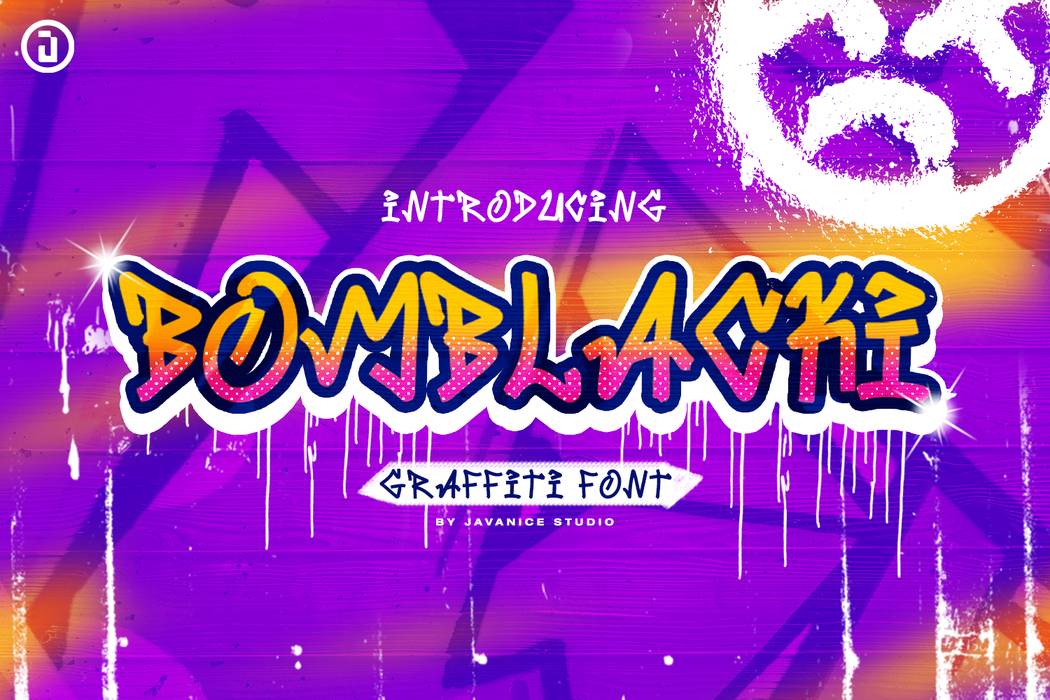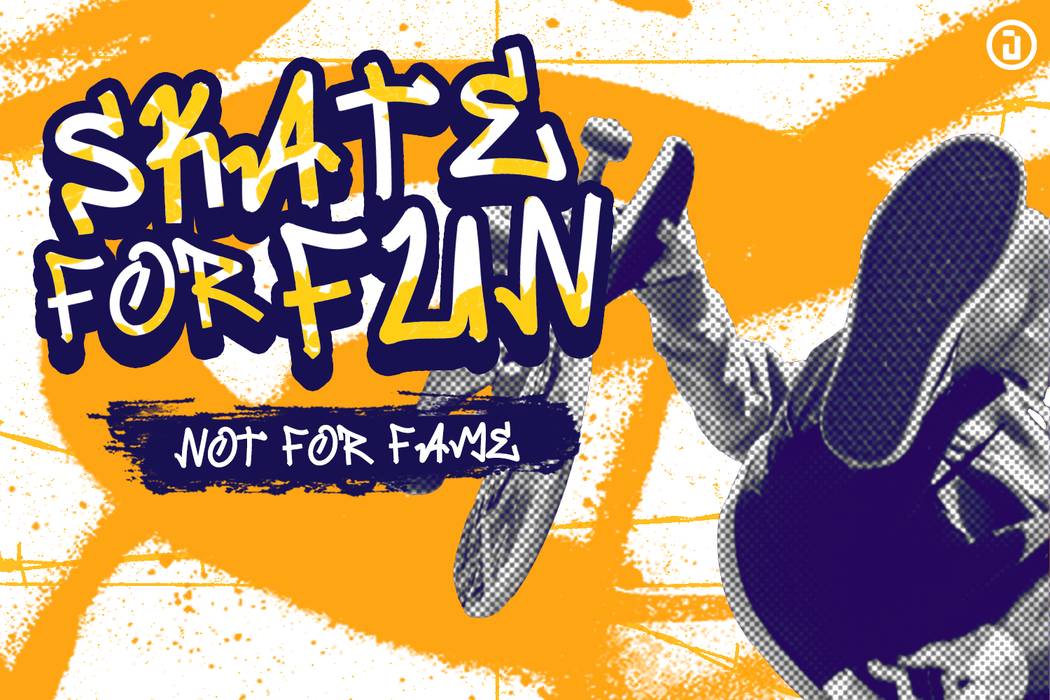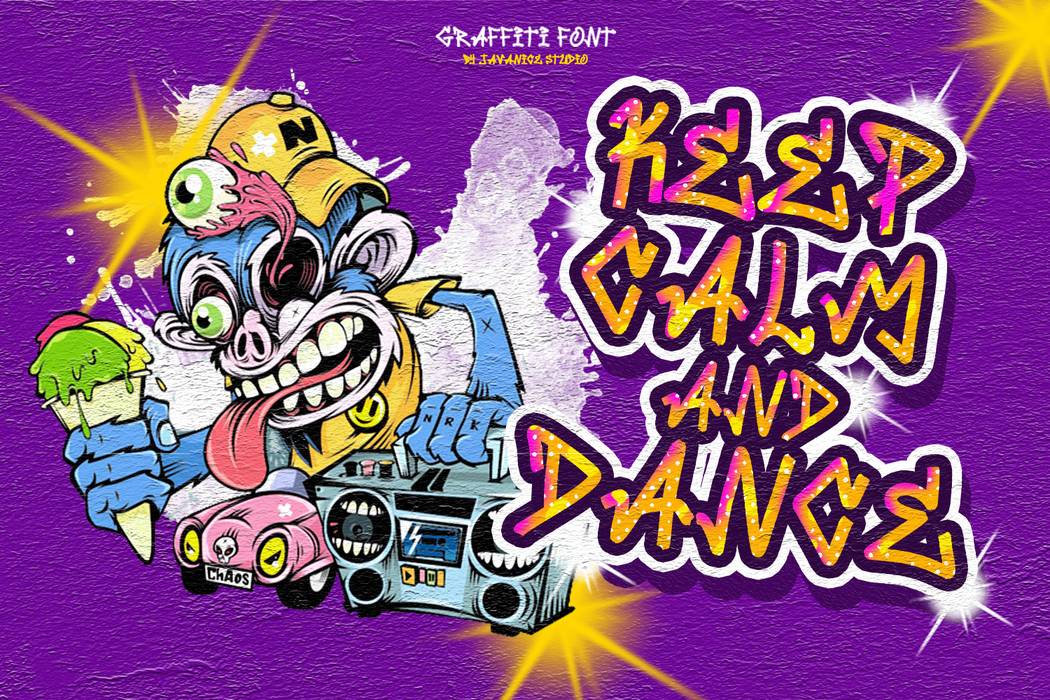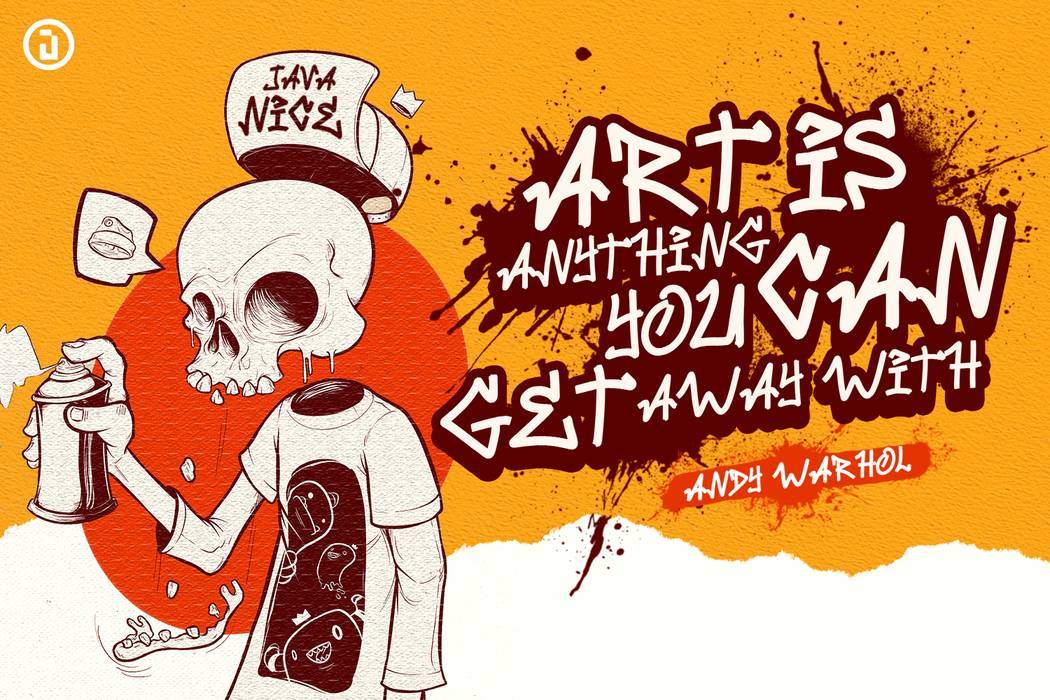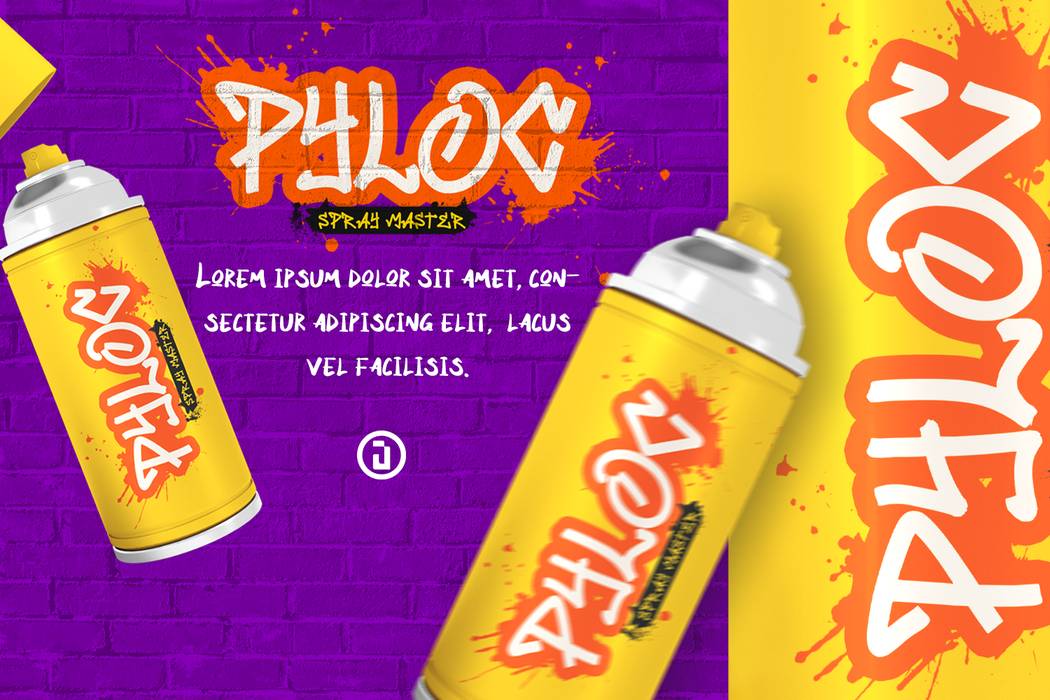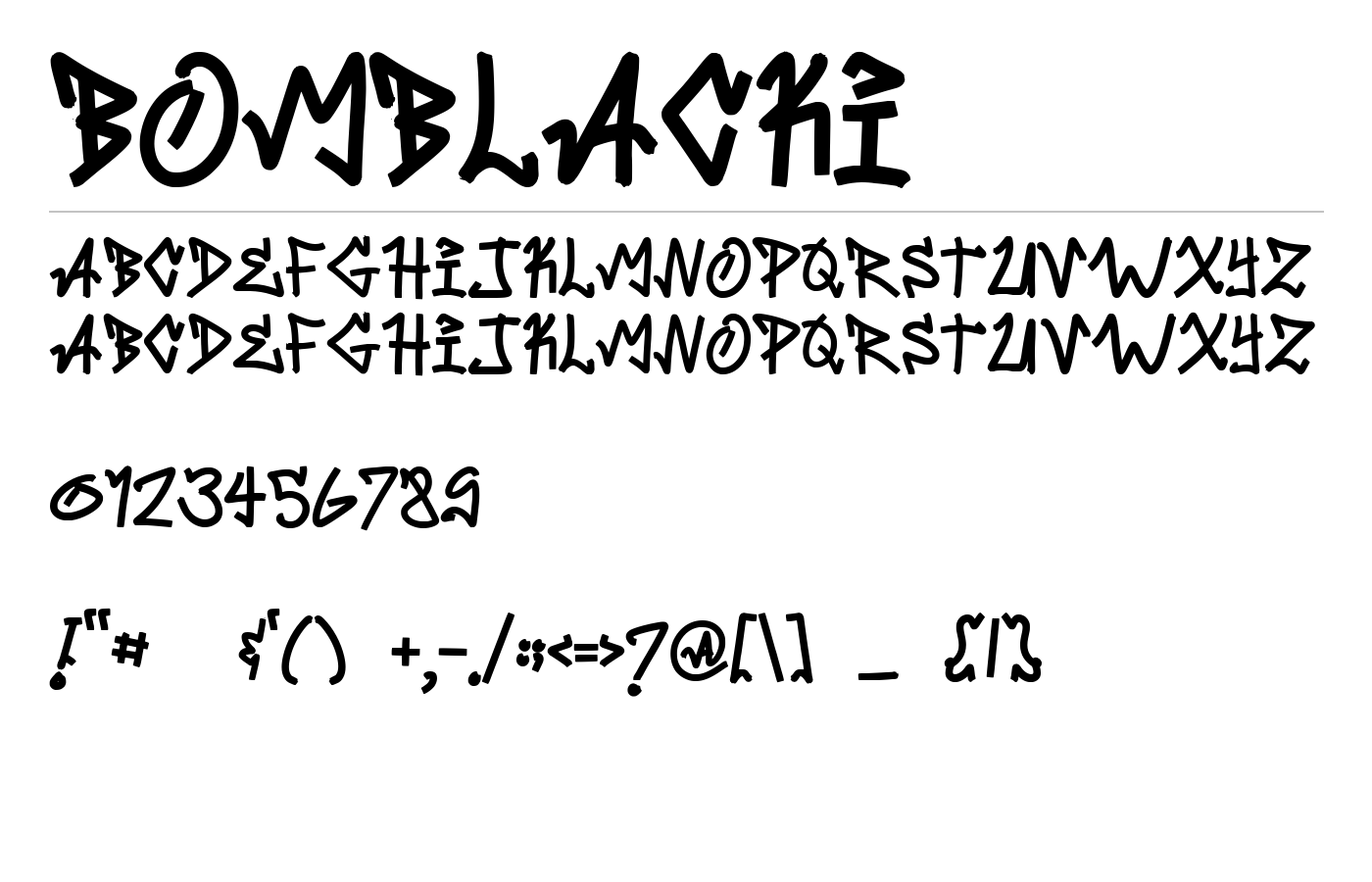
Bomblacki is a bold, hand-drawn display font with an edgy, graffiti-inspired style that brings a dynamic and urban vibe to any design. Its irregular, sharp strokes and playful letterforms make it perfect for eye-catching headlines, posters, or creative branding projects looking to convey energy and street culture. This font stands out best in artistic and informal contexts where personality and impact are key.
Bomblacki Font
About Bomblacki Font
| Font family | Bomblacki Font |
| Designer | JAVANICE STUDIO |